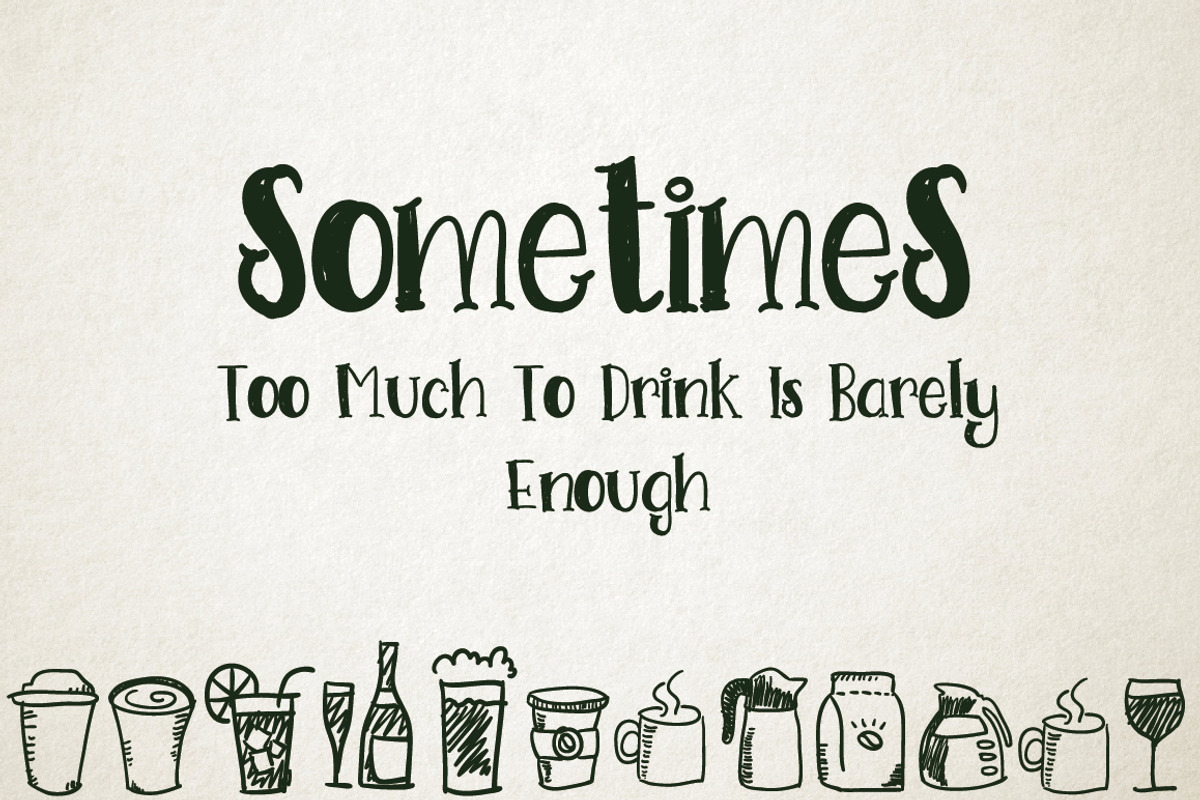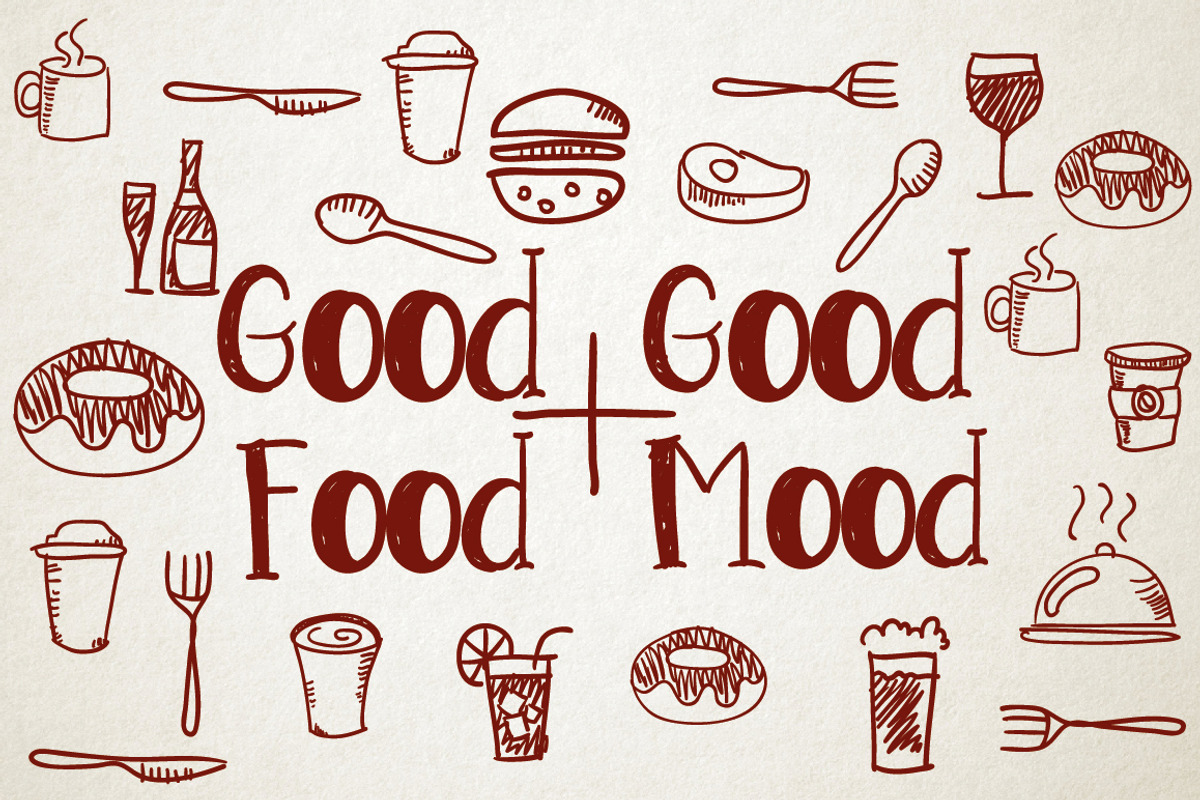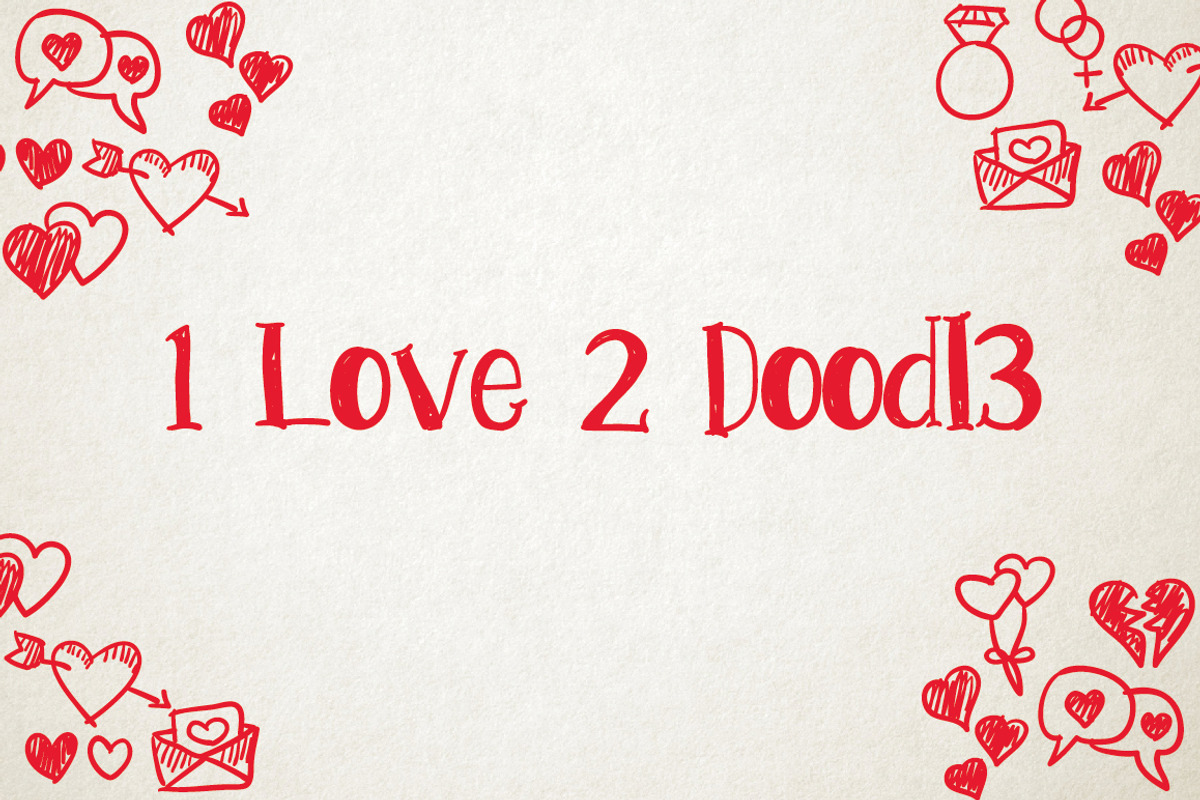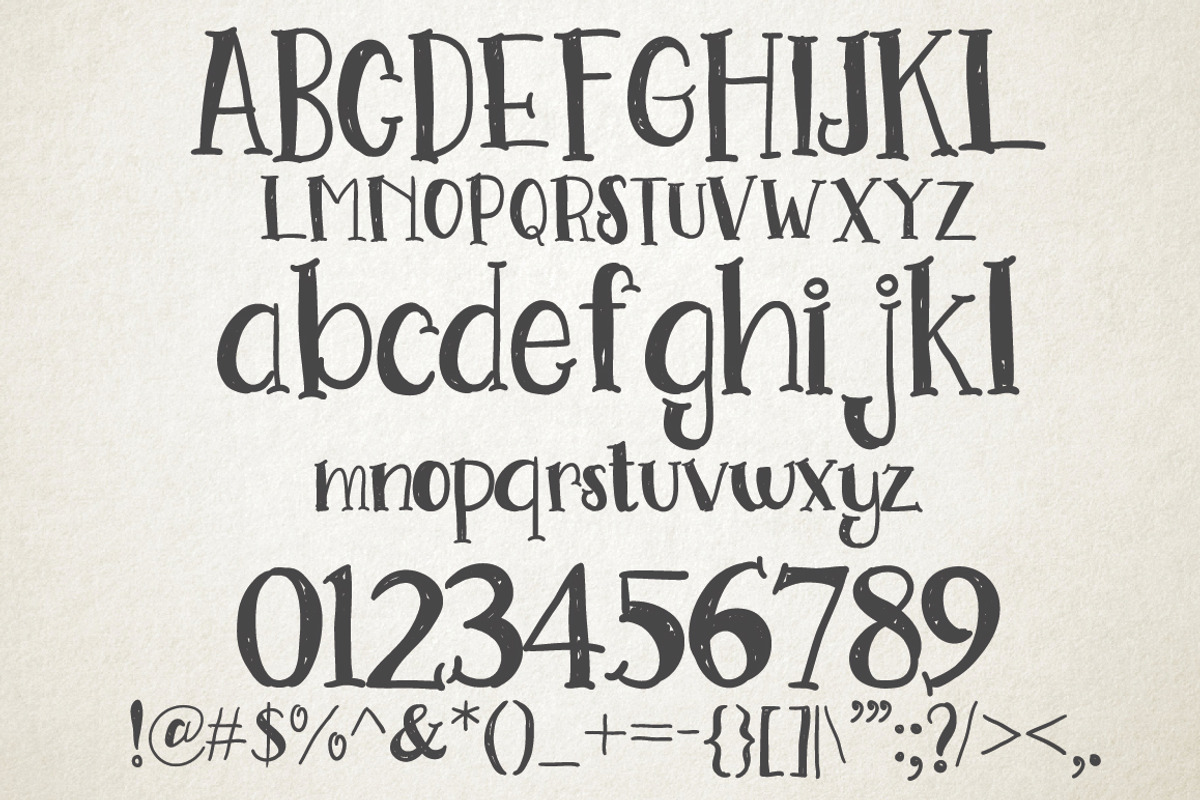
Go Doodling, Scratching Font
Go Doodling, Scratching Font by Debut Studio is a font selected for branding, posters, packaging, typography.
Go Doodling, Scratching Font by Debut Studio fits naturally into Branding, posters, packaging, typography.